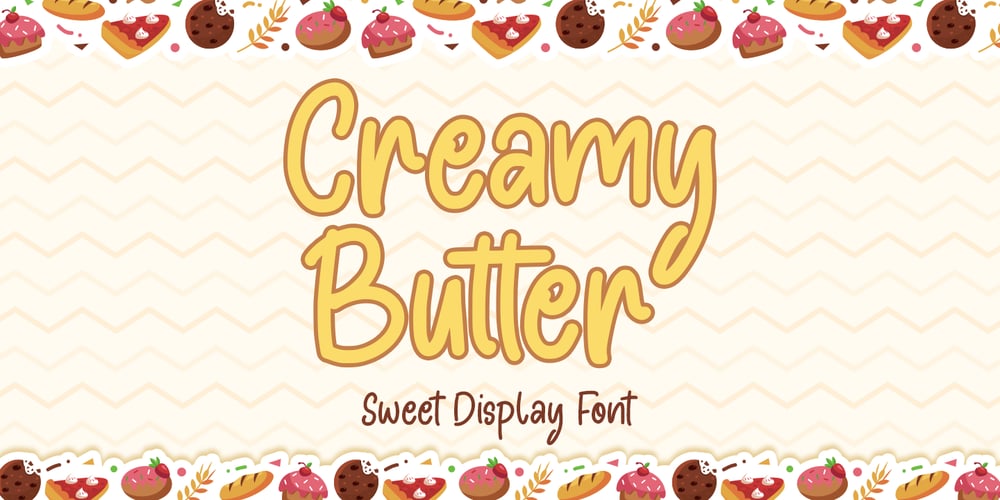
Creamy Butter Font Family was designed by Novia Himatunnisa and published by Nissa Nana. Creamy Butter contains 1 styles and family package options. Creamy Butter is a sweet and friendly display font. Whether you’re using it for crafts, digital design, presentations, or making greeting cards, this font has the potential to become your favorite go-to font, no matter the occasion!